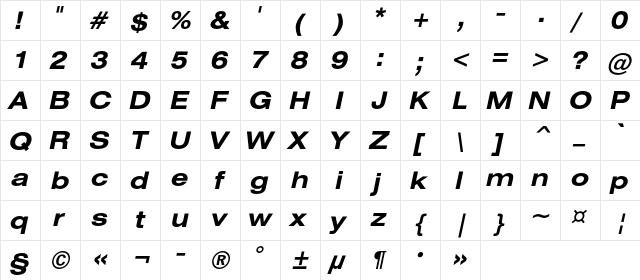
HeliosExt Bold Italic Font Preview
Design Context for HeliosExt Typeface
HeliosExt offers clean, dependable letterforms without strong stylistic allegiance, making it a practical choice for designers who need flexibility. The dynamic lean of this cut emphasises speed and emphasis in any layout. The heavy weight commands attention and anchors typographic hierarchies.
Pro Tip: Try HeliosExt for annotation and caption copy alongside an upright companion — the contrast in angle creates a dynamic but ordered typographic system.